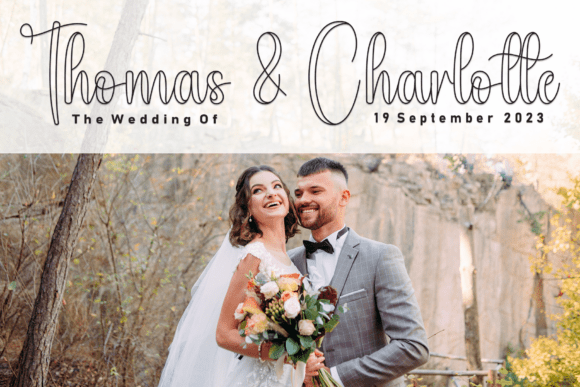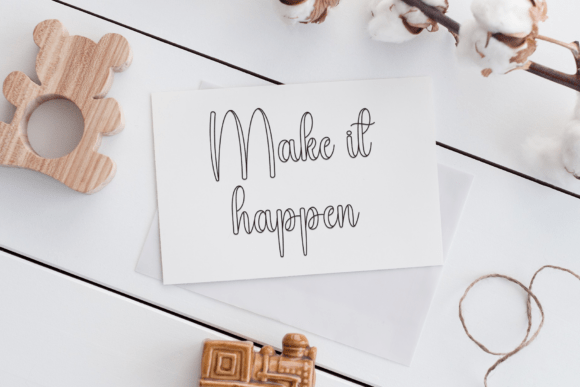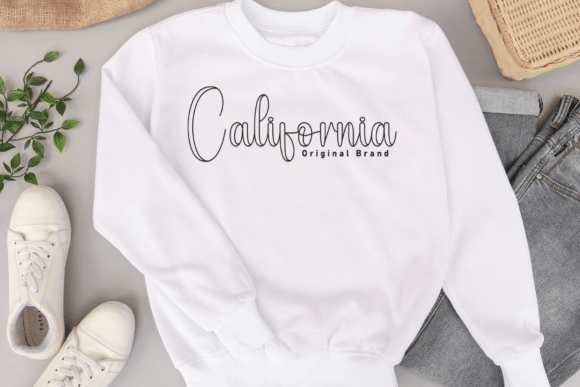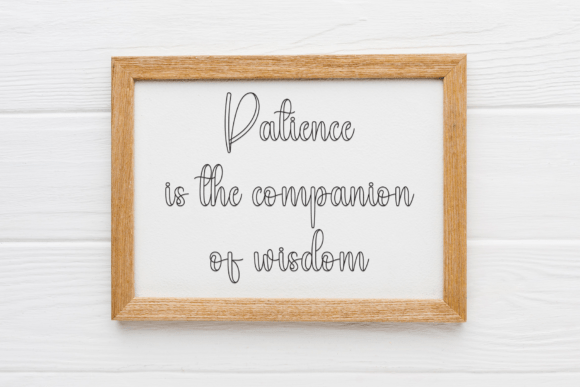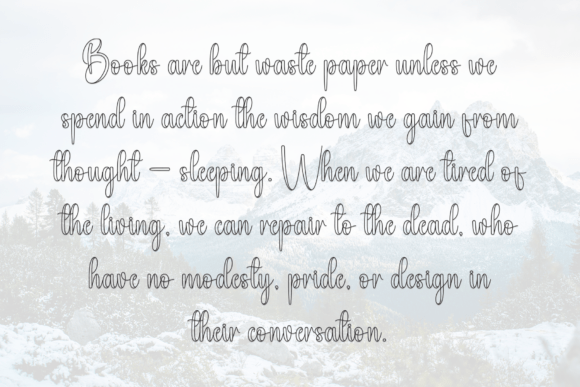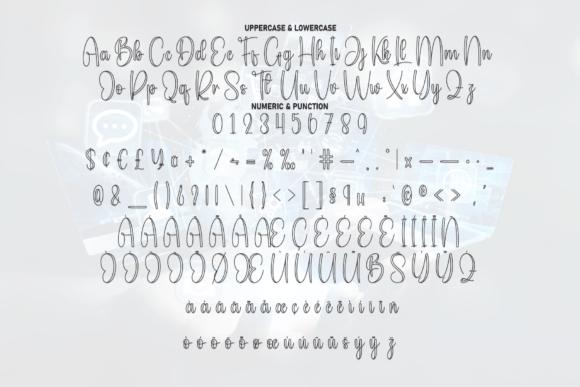
Discover the Elegance of Digital: A Stylish Handwritten Script Font
In the world of digital design, typography plays a crucial role in conveying the tone and personality of a brand or project. Among the numerous font options available, Digital stands out as a stylish handwritten script font that exudes fresh elegance and delicate charm. This lovely typeface is perfect for designers and crafters looking to add a soft, personal touch and uplifting feel to their work.
The Characteristics of Digital Font
Digital font is characterized by its flowing strokes and graceful curves, which evoke a sense of renewal and sophistication. Its elegant design makes it an ideal choice for various applications, including invitations, branding, and seasonal designs. The font’s unique charm lies in its ability to convey a sense of warmth and approachability, making it perfect for projects that require a personal touch.
Uses of Digital Font
The versatility of Digital font makes it suitable for a wide range of design projects. Some of the most popular uses of this font include:
- Invitations: Digital font is perfect for creating beautiful and elegant invitations for special occasions such as weddings, birthdays, and anniversaries.
- Branding: The font’s unique charm and elegance make it an excellent choice for branding projects, including logos, packaging, and marketing materials.
- Seasonal Designs: Digital font is ideal for creating seasonal designs, such as Christmas cards, Easter egg designs, and other holiday-themed projects.
- Stationery: The font’s elegant design makes it perfect for creating beautiful stationery, including letterheads, greeting cards, and journals.
Benefits of Using Digital Font
Using Digital font in your design projects offers several benefits, including:
- Elegance and Sophistication: Digital font adds a touch of elegance and sophistication to any project, making it perfect for high-end brands and designs.
- Personal Touch: The font’s handwritten script style gives projects a soft, personal touch that resonates with audiences.
- Versatility: Digital font is versatile and can be used in various design projects, from invitations to branding and seasonal designs.
- Easy to Read: The font’s clear and flowing strokes make it easy to read, even at small sizes.
Tips for Using Digital Font Effectively
To get the most out of Digital font, consider the following tips:
- Pair with Other Fonts: Pair Digital font with other fonts to create a unique and visually appealing design.
- Use in Moderation: Use Digital font in moderation to avoid overwhelming the design.
- Pay Attention to Kerning: Pay attention to kerning to ensure that the font looks elegant and sophisticated.
Digital font is a stylish handwritten script font that offers a fresh and elegant approach to typography. Its flowing strokes and graceful curves evoke a sense of renewal and sophistication, making it perfect for invitations, branding, and seasonal designs. With its versatility, elegance, and personal touch, Digital font is an excellent choice for designers and crafters looking to add a soft, personal touch and uplifting feel to their projects.